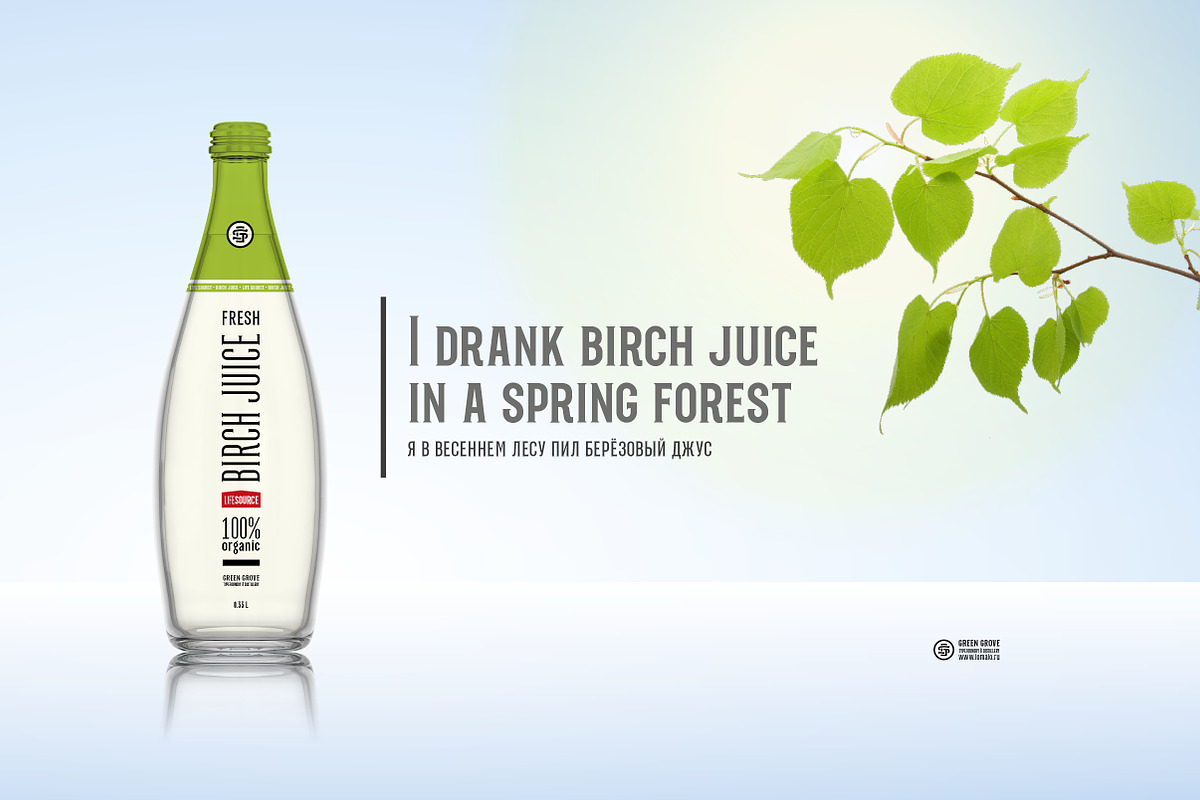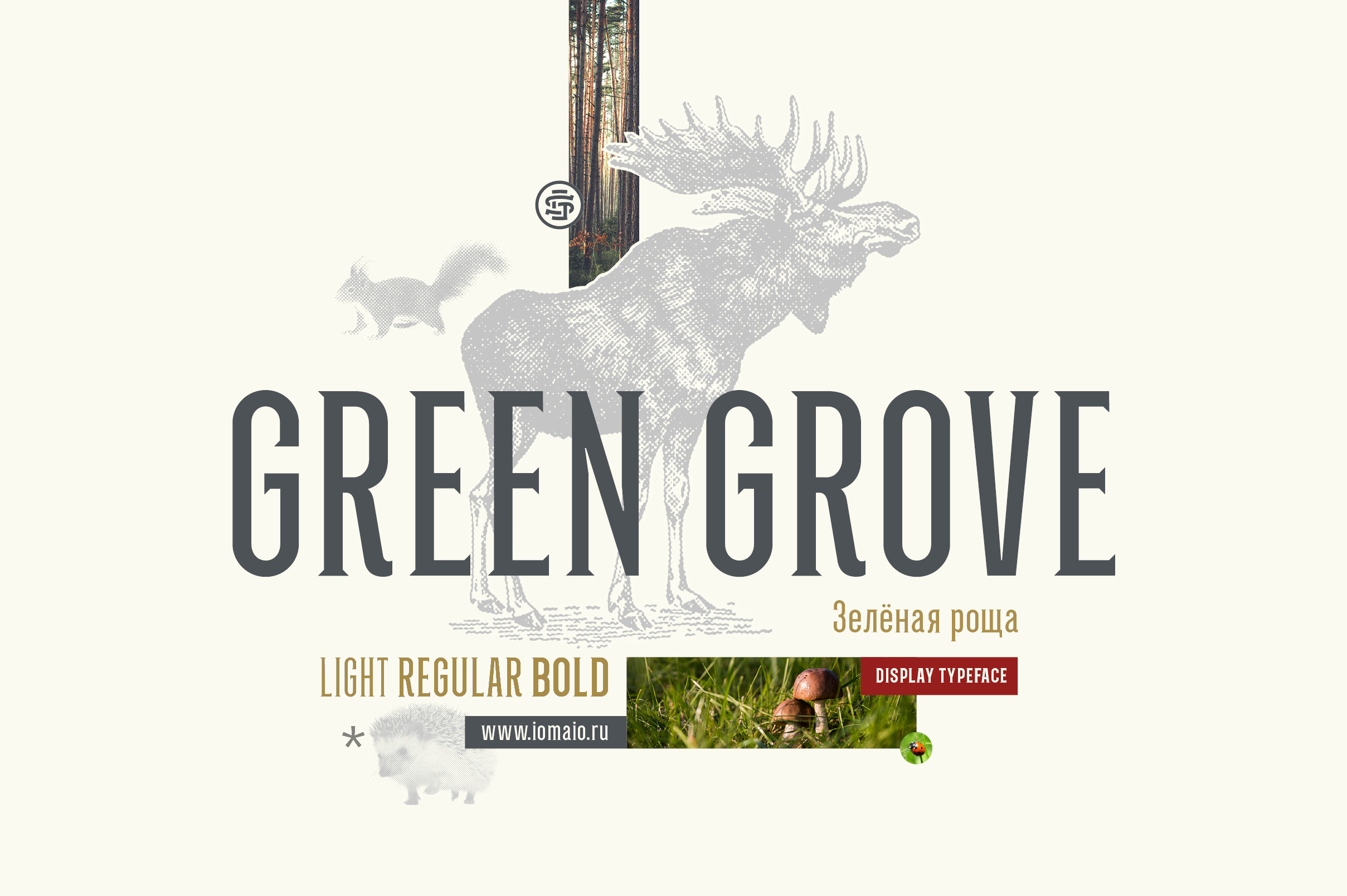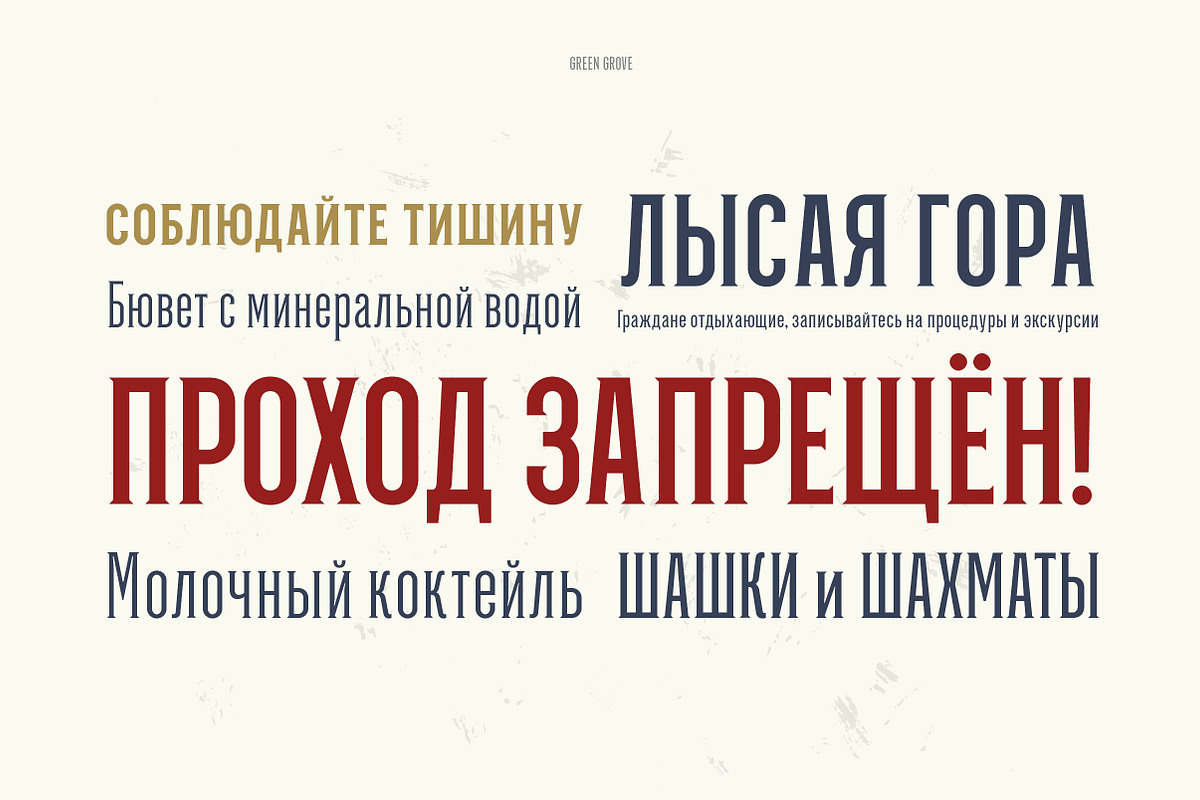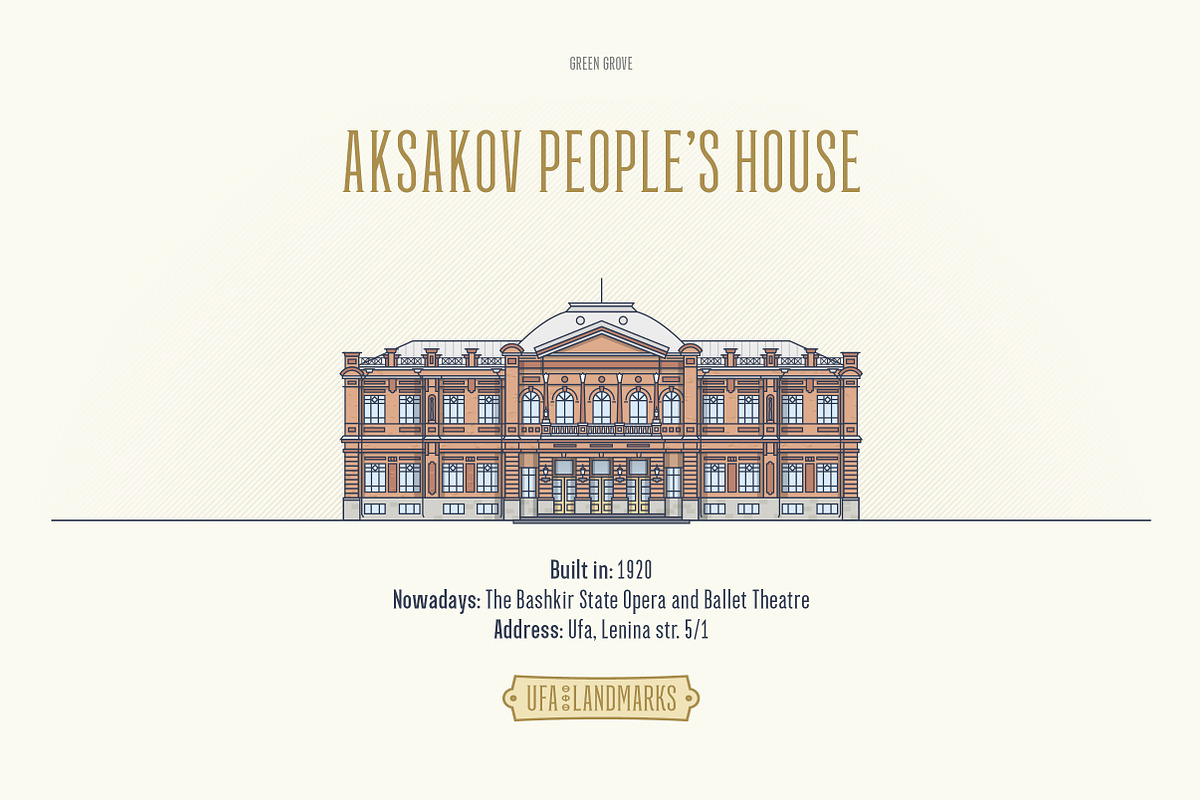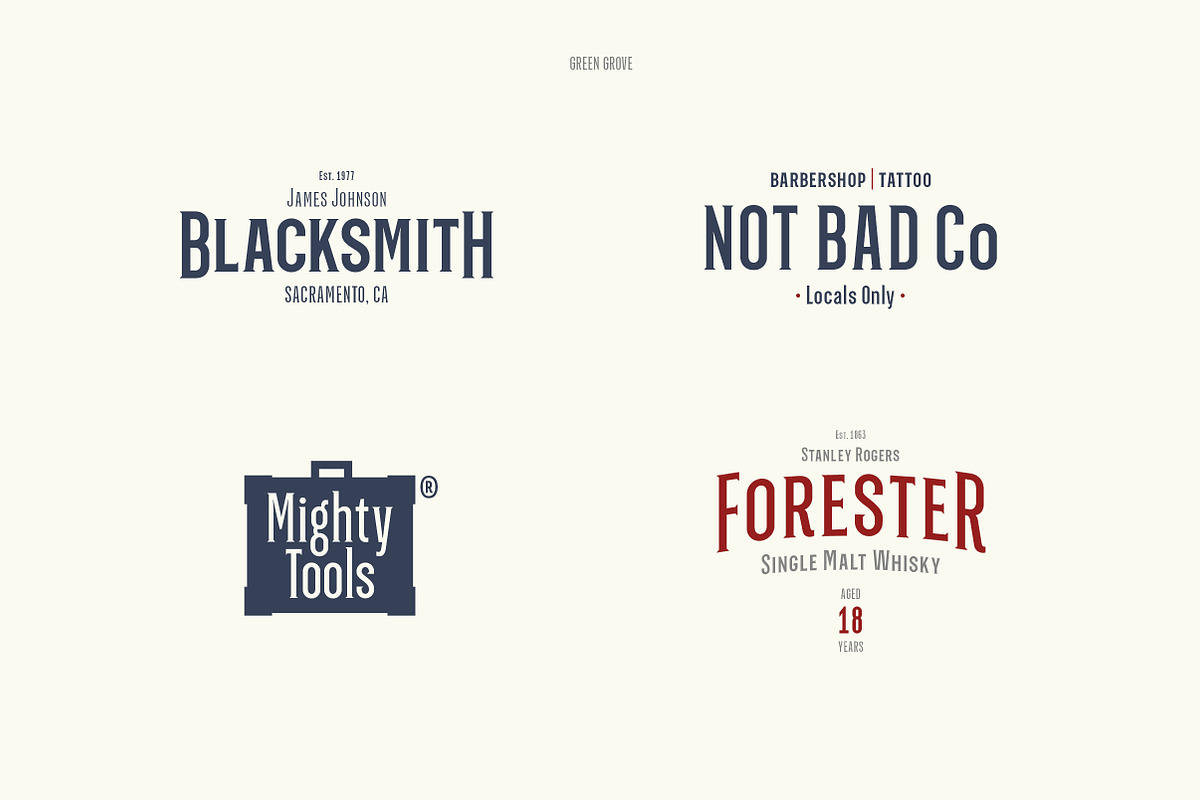
Green Grove // 3 fonts
Green Grove is a display typeface with low contrast and compressed proportions. It works good in headlines for posters, key visuals, corporate identity and package design.